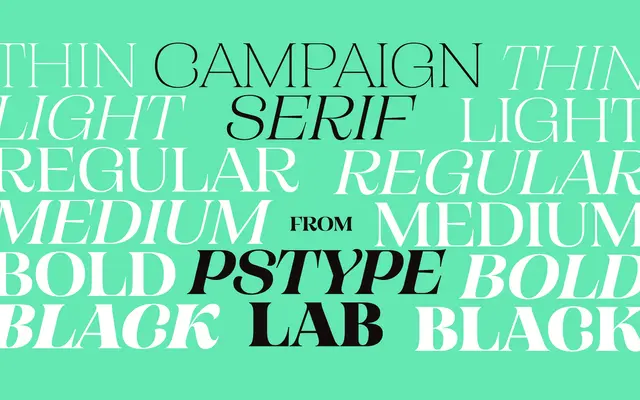
Campaign Serif
A six-weight serif family with italic companions and swashy lowercase alternates, suited to editorial and display work.
Twelve styles span six weights from Thin to Black, each with a matching italic, giving the family a broad range for both text and headline settings. OpenType features include discretionary ligatures, oldstyle figures, stylistic alternates for v and w, and an alternative single-loop g, adding character at larger sizes. Swashy lowercase alternates introduce an expressive quality that positions the face towards magazine and campaign contexts.
A multi-weight serif with swashy alternates and oldstyle figures, positioned for editorial and expressive typesetting. The combination of optical metrics and alternate characters suggests a humanist serif with display tendencies.